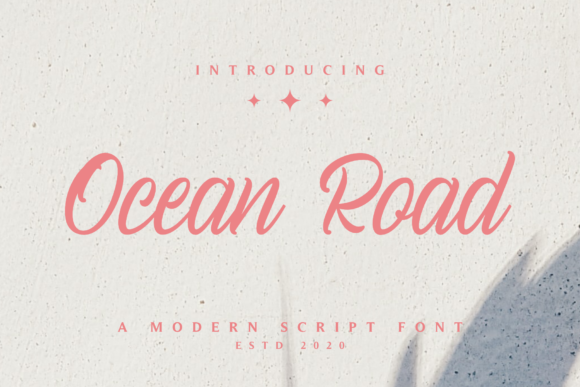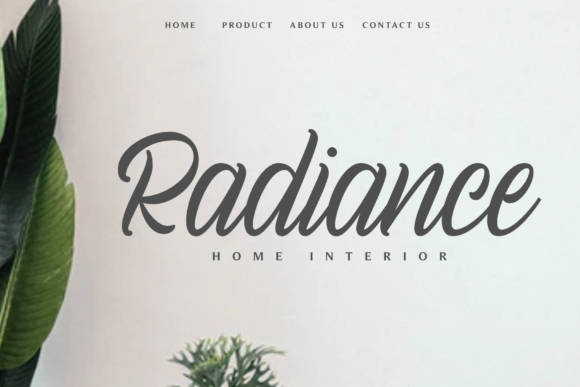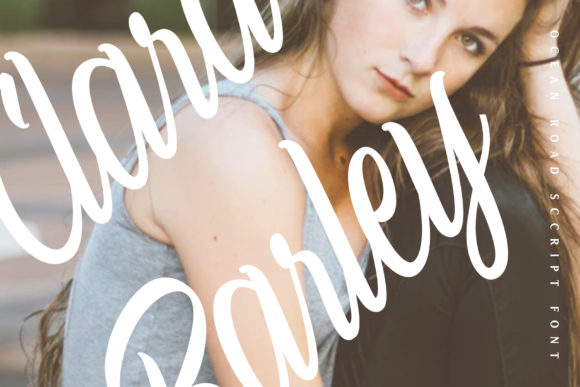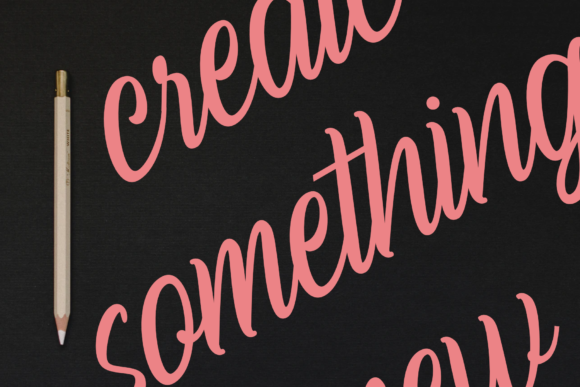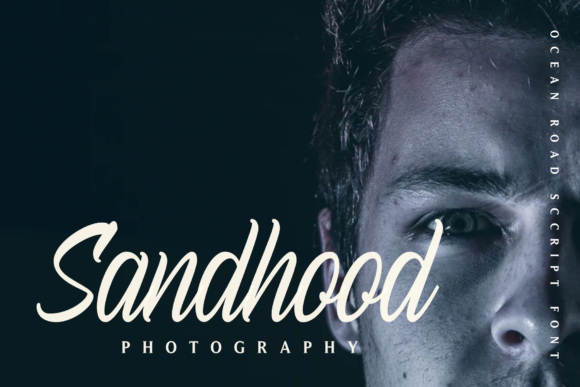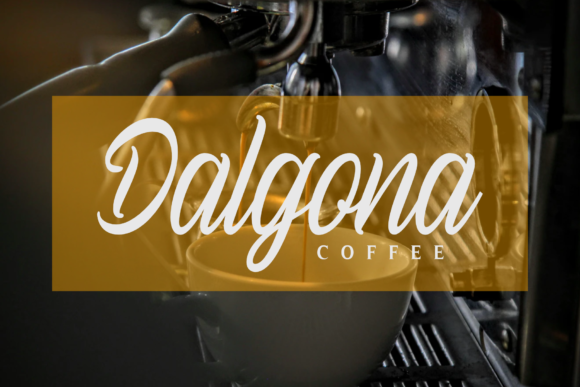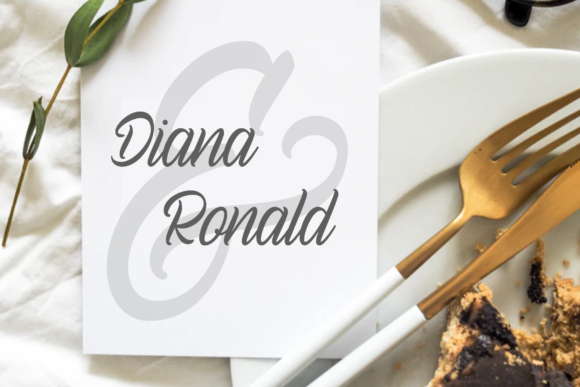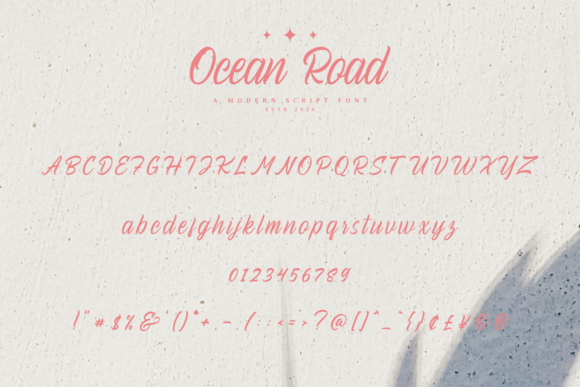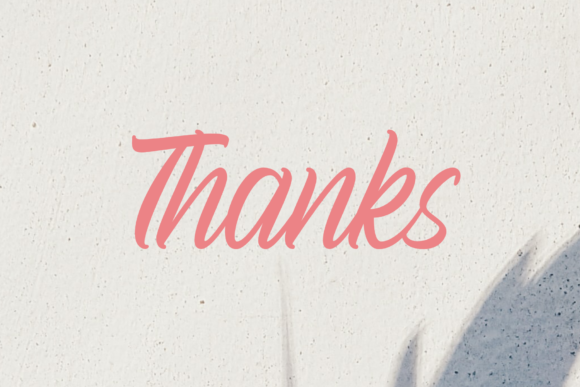
Ocean Road Font
About Ocean Road Font
Ocean Road is a cute and casual handwritten font with an incredibly friendly feel. Whether you’re looking for fonts for Instagram or calligraphy scripts for DIY projects, this handwritten font will turn any creative idea into a true piece of art!